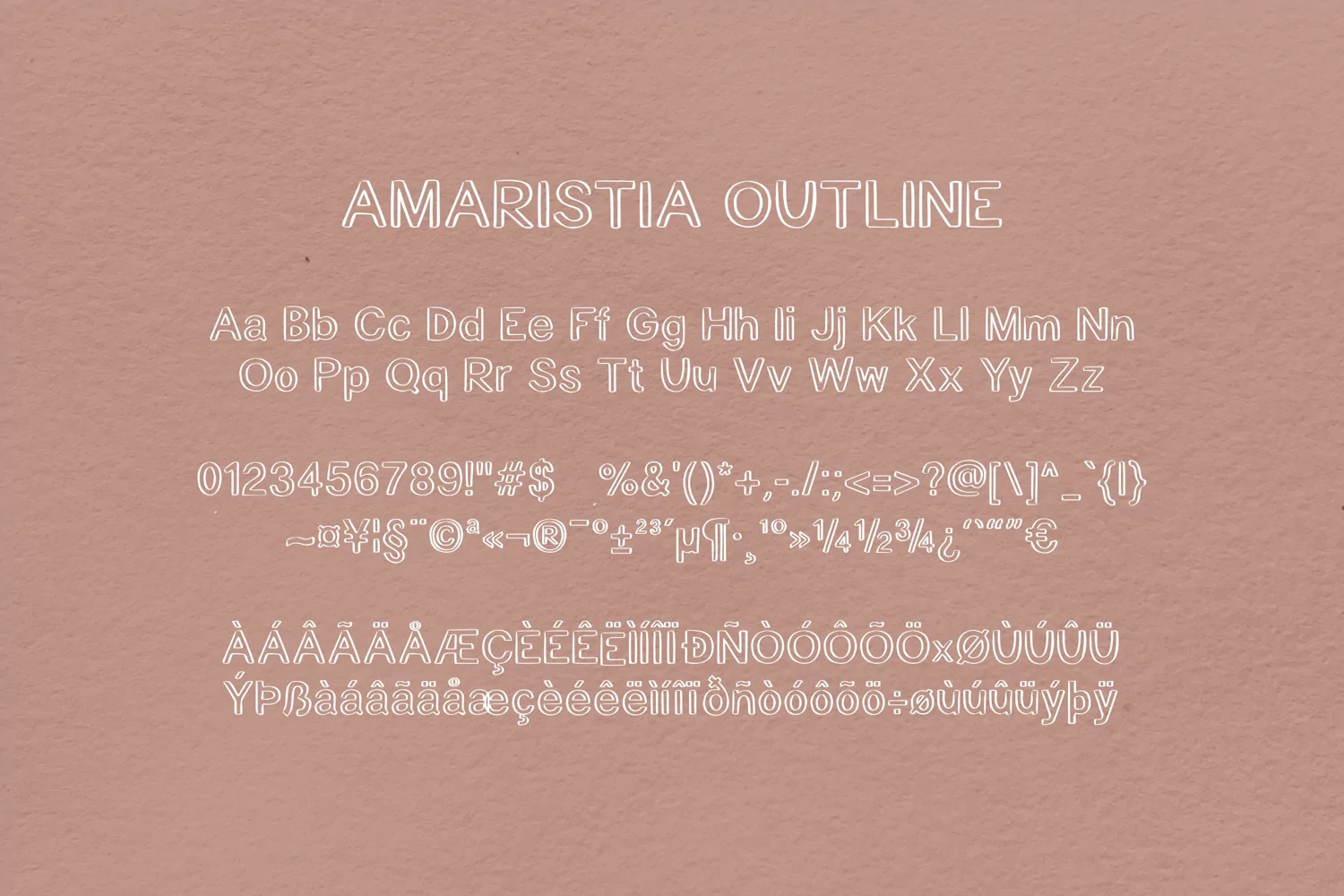
Amaristia is an elegant yet versatile handwritten font duo. It consists of a solid and an outline sans serif font which look good together. Together or apart, these fonts are perfect for posters, printed quotes, digital designs, or any projects that require an elegant and unique look!
Amaristia